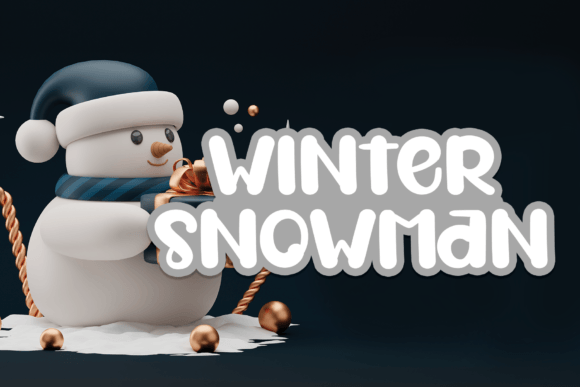
Winter Snowman Font
In the realm of digital design, typography reigns supreme, shaping the visual landscape of our digital experiences. As the gatekeepers of visual communication, fonts hold the power to evoke emotions, convey messages, and establish brand identities. Among the vast array of digital fonts, the Winter Snowman Font stands out as a beacon of warmth and whimsy, ready to transform your creative projects into enchanting realms of visual delight.
Let's delve into the captivating world of Winter Snowman Font, a display font that dances across the digital canvas with its charming handwritten style. Created by the visionary William Jhordy, this font embodies the essence of simplicity and friendliness, inviting you to infuse your designs with a touch of playful elegance. Whether you're crafting personalized greeting cards, creating eye-catching presentations, or designing captivating digital content, Winter Snowman Font is your trusted companion, ready to elevate your projects to new heights of visual appeal.
Picture this: a heartwarming holiday card adorned with the Winter Snowman Font, its characters dancing like snowflakes on a crisp winter morning, conveying your heartfelt sentiments with a touch of festive charm. Or, envision an engaging presentation where the Winter Snowman Font takes center stage, its playful strokes captivating the audience's attention, leaving an unforgettable impression. The possibilities are boundless, as this versatile font seamlessly adapts to a myriad of creative endeavors.
But what sets Winter Snowman Font apart from the myriad of digital fonts? It lies in its ability to evoke emotions, to connect with your audience on a deeper level. Its friendly and inviting demeanor creates an instant connection, drawing people in and inviting them to explore the depths of your creative vision. Whether you're designing a children's book, a whimsical social media campaign, or a heartfelt invitation, Winter Snowman Font effortlessly weaves its magic, transforming ordinary words into captivating narratives.
As the digital world continues to evolve, the demand for captivating and authentic fonts grows exponentially. Winter Snowman Font stands at the forefront of this evolving landscape, offering designers and creatives alike a powerful tool to create immersive and memorable experiences. With its heartwarming charm and boundless versatility, this font is the key to unlocking your creative potential, turning your digital dreams into tangible realities.
Take the plunge into the world of Winter Snowman Font today and embark on a creative journey like no other. Let its whimsical strokes guide you as you design enchanting greeting cards, captivate audiences with unforgettable presentations, and create digital content that resonates with your audience. The possibilities are endless, and the magic awaits your touch.